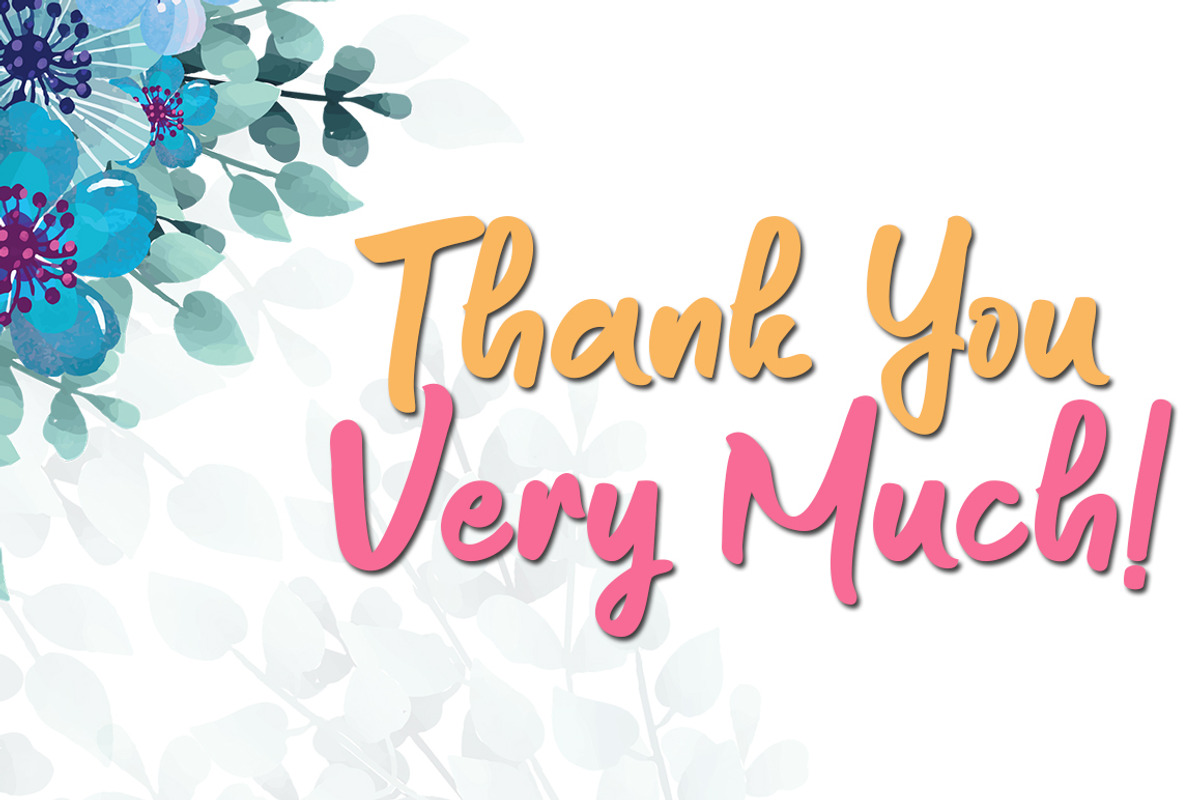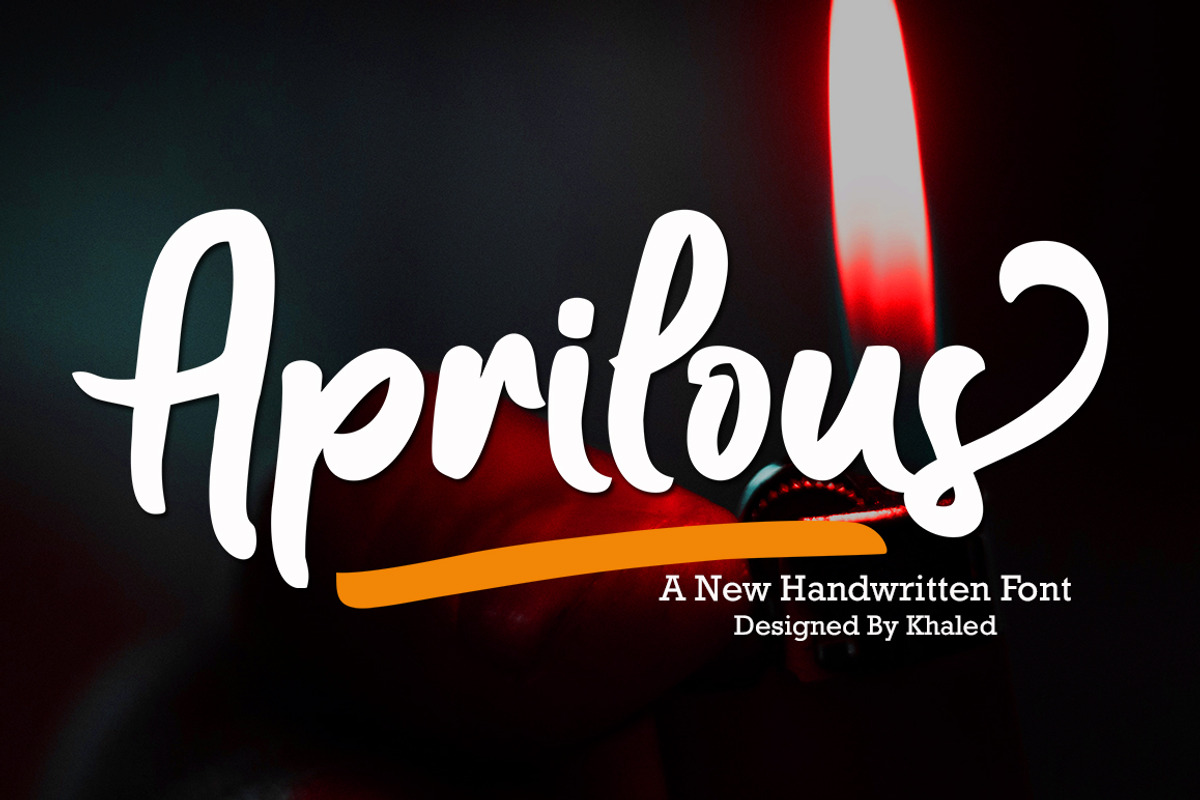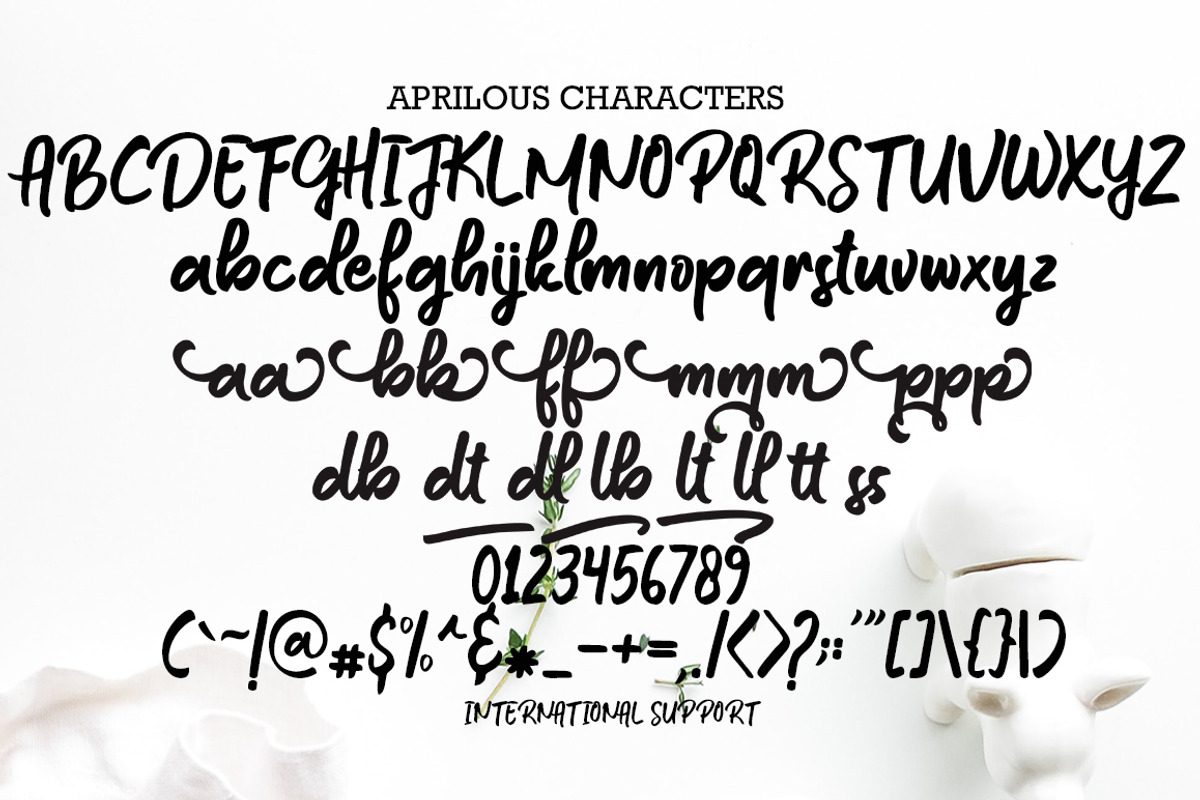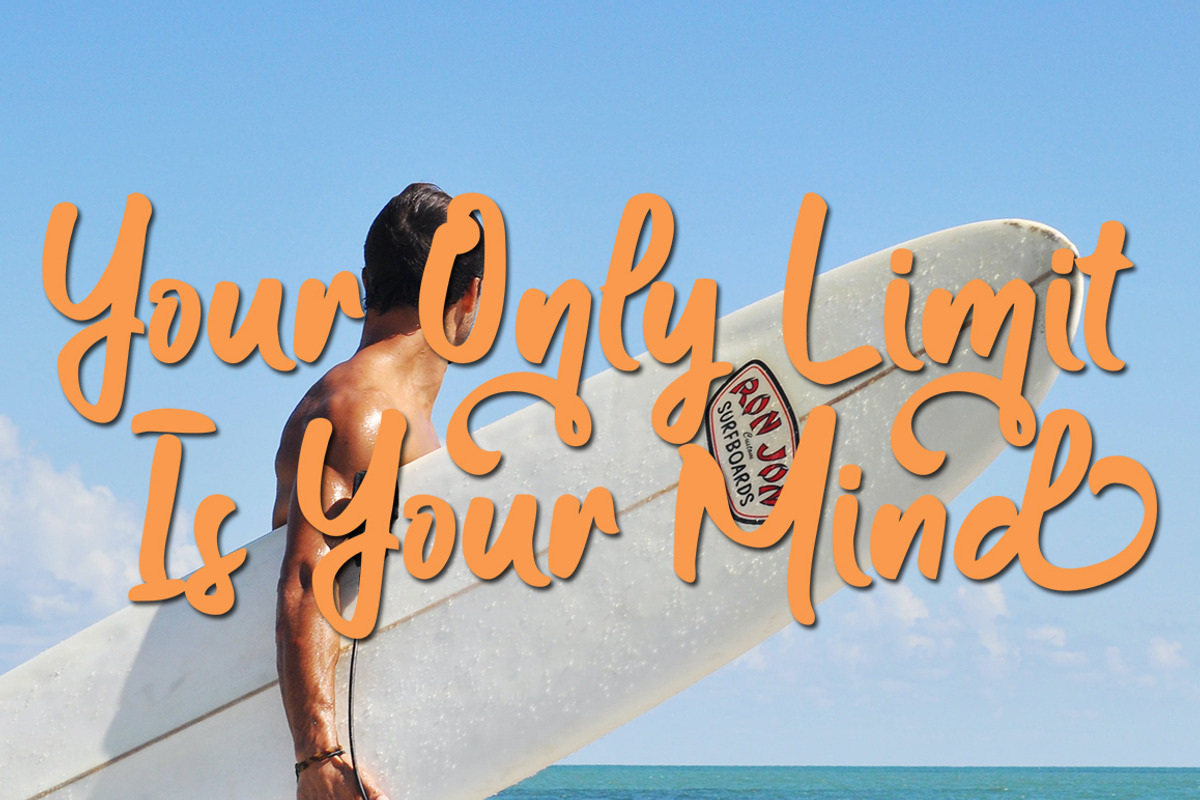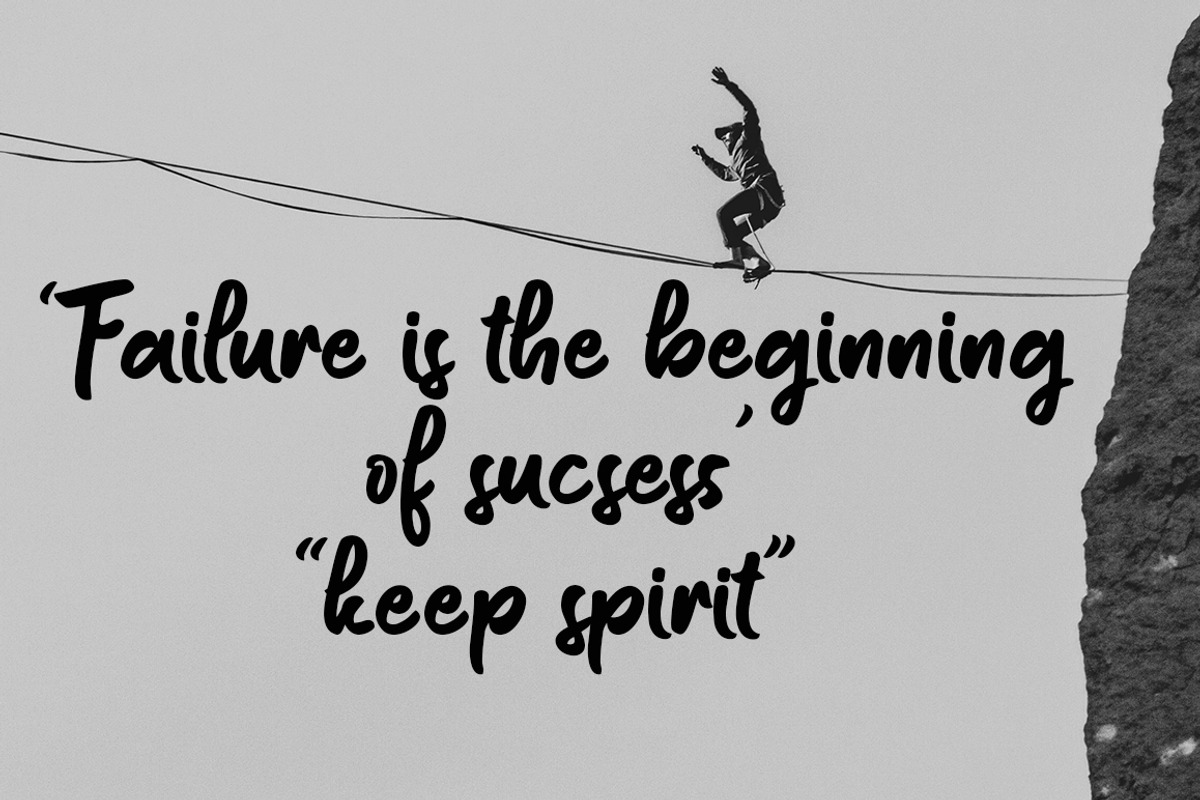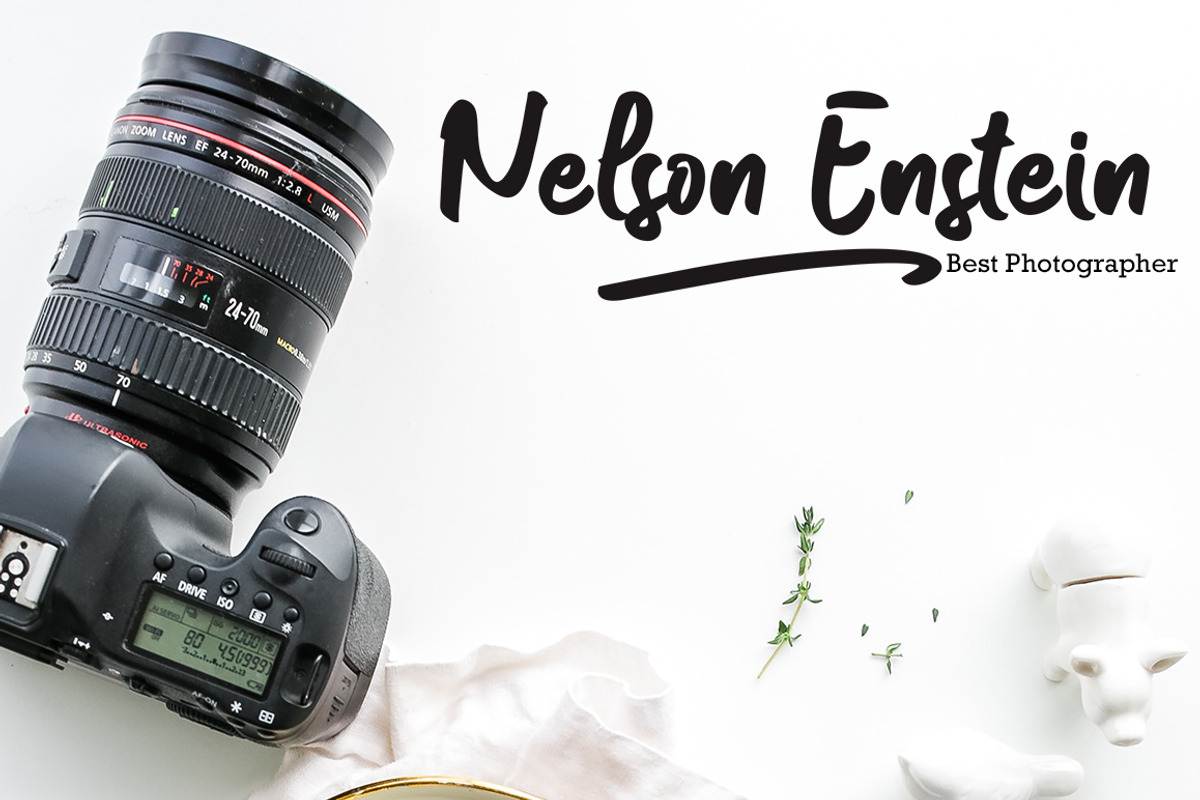
Aprilous
Aprilous is a modern smooth brush font, organic, dynamic and energetic sytle.Can used for various purposes. such as the title, signature, logo, correspondence, wedding invitations, letterhead, signage, labels, newsletters, posters, badges, etc.